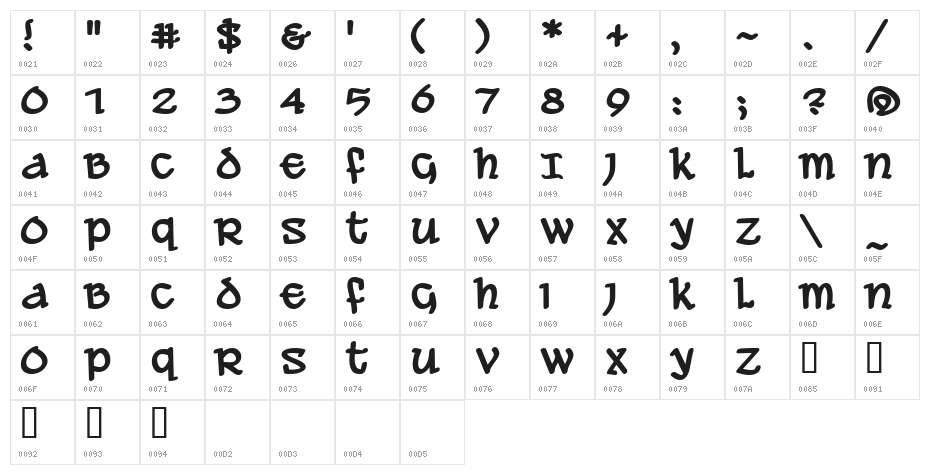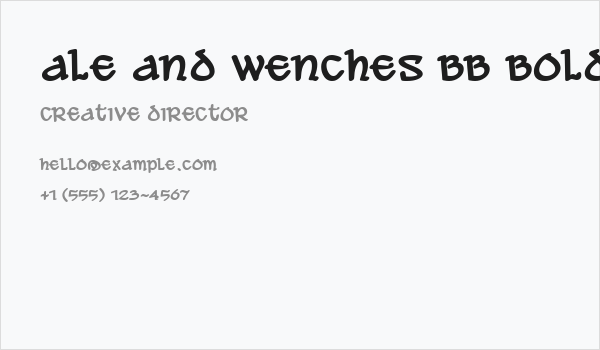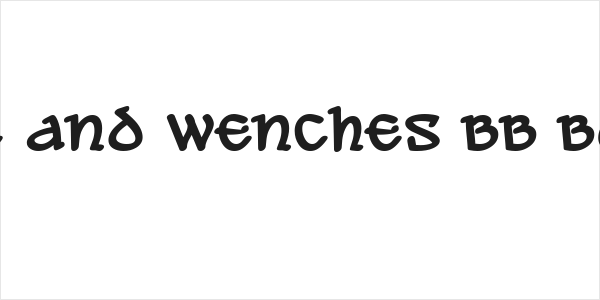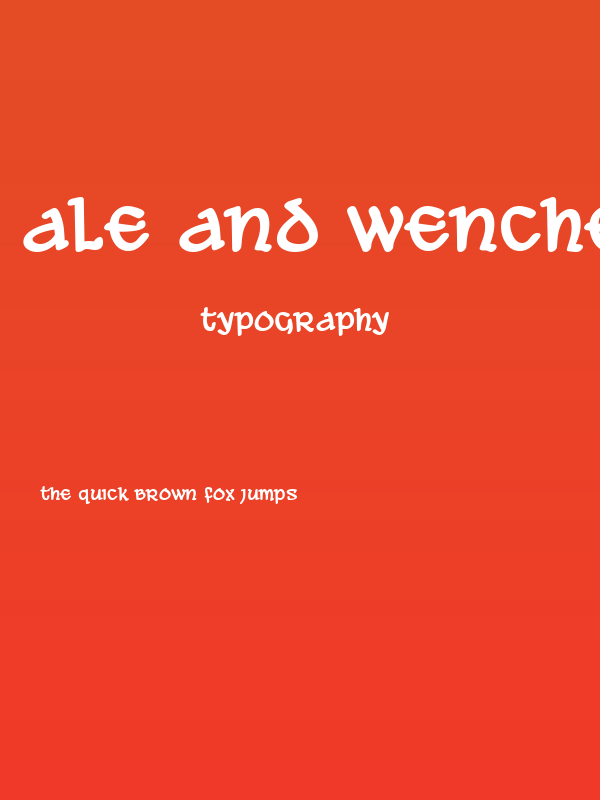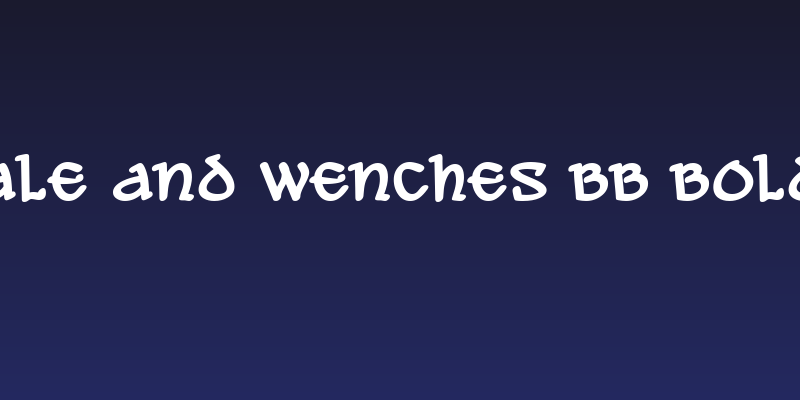
Ale and Wenches BB Bold Font
Ale and Wenches BB Bold Description
This font features a playful and whimsical style with a bold presence. The characters exhibit a hand-drawn quality, with rounded edges and a slightly uneven baseline that adds to its charm. The uppercase and lowercase letters maintain a consistent style, with a slight slant that gives a dynamic feel. The numerals are equally bold and maintain the playful aesthetic. Special characters are well-integrated, ensuring versatility in various design contexts. The overall appearance is reminiscent of a casual, handwritten script, making it suitable for projects that require a touch of personality and informality.
| Overall Style | Playful, Whimsical, Casual |
| Proposed Projects | Ideal for children's books, playful branding, casual invitations, and creative posters. |